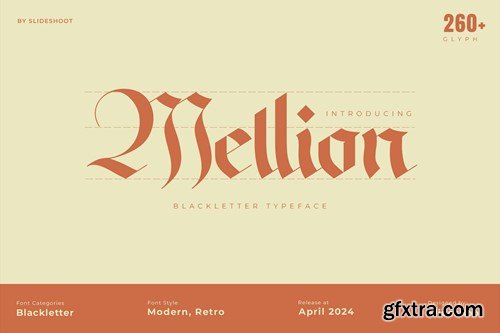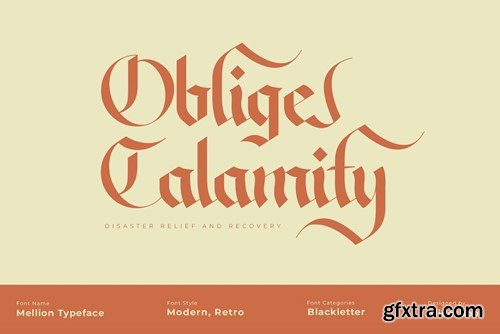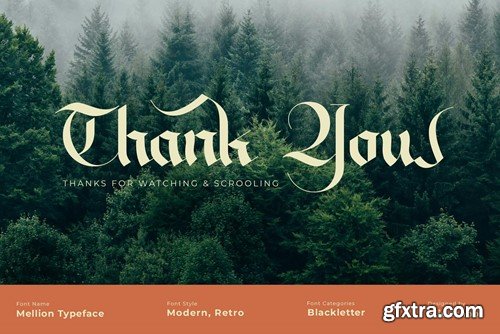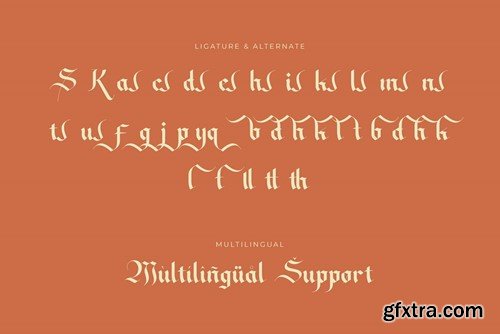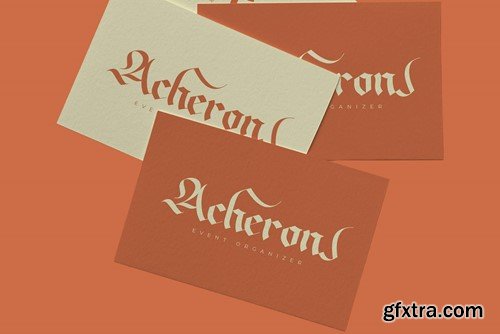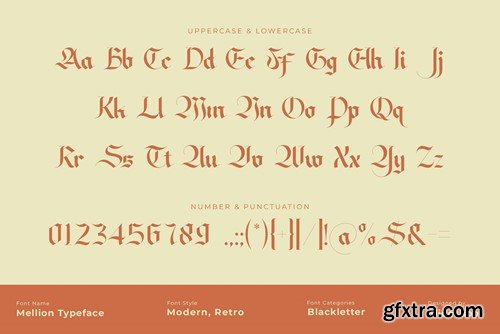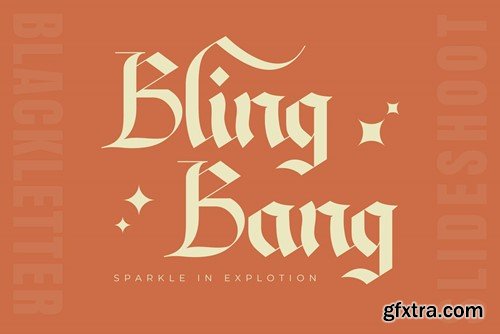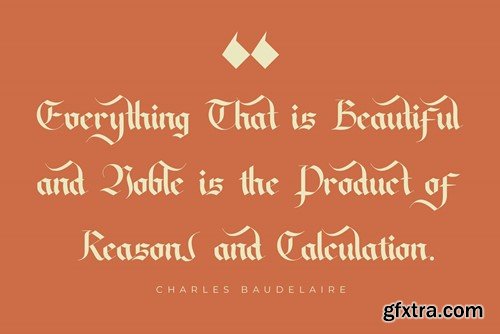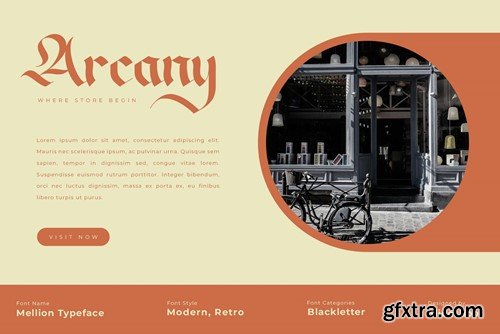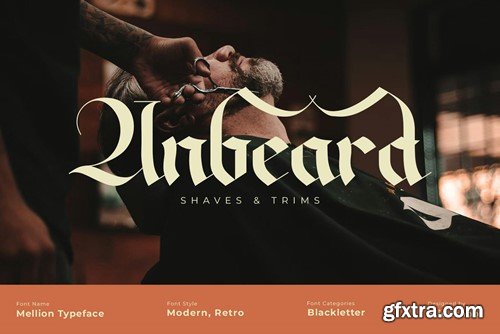
Mellion Blackletter Font
Mellion Blackletter is a balanced, smooth, elegant and blackletter font. He has a beautiful character. It fits perfectly with invitation card designs, company logos, movie titles, movie names, business cards, book titles, brand names and various other designs. Mellion Blackletter is a subtle blackletter font that exudes sophistication and elegance. Its stylish alternations and ligatures make this font the perfect partner for any project.
FEATURE :
• Ligature
• Uppercase and lowercase
• Numbering and Punctuation